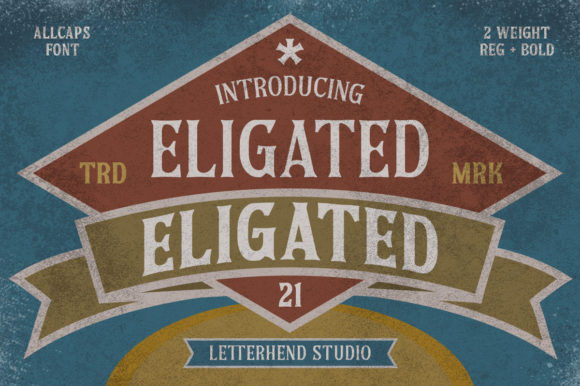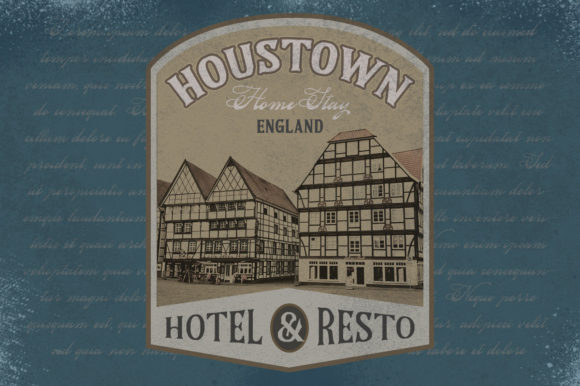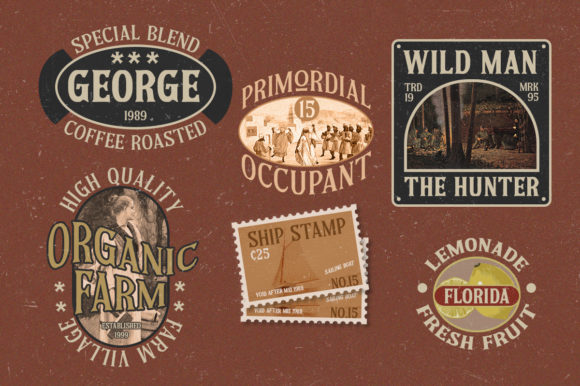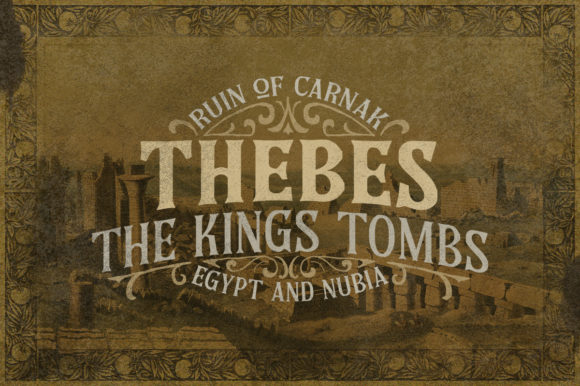
Eligated Font: A Bold Vintage Display Font for Unique Logo Design
About the Eligated Font
From logos to headlines, the Eligated Font is the perfect choice for making a lasting impression. Eligated is a cool, bold and vintage styled display font. It can be used for various creations that require an assertive touch, such as labels, branding, logos and so on.
Eligated’s strong, vintage styling makes it ideal for headlines, short impactful taglines, and logos requiring a bold, assertive presence. It excels in branding projects aiming for a retro or vintage aesthetic, particularly those related to apparel, motorcycles, or spirits. Avoid using Eligated for body text or lengthy paragraphs; its bold weight and condensed letterforms are not suited for readability in extended copy or UI elements.
Pair Eligated effectively with a clean sans-serif like Montserrat for a modern contrast, or a classic serif such as Garamond for a more traditional feel. A delicate script font could add a touch of elegance, provided it’s used sparingly to avoid overwhelming Eligated’s strong personality.
The font projects a confident, slightly rebellious energy, suited to brands that value heritage and authenticity while also possessing a modern edge. Its vintage styling evokes a sense of nostalgia and timelessness, making it a versatile choice for projects seeking a balance between classic and contemporary.
Eligated Font Usage Examples
Eligated Font Example